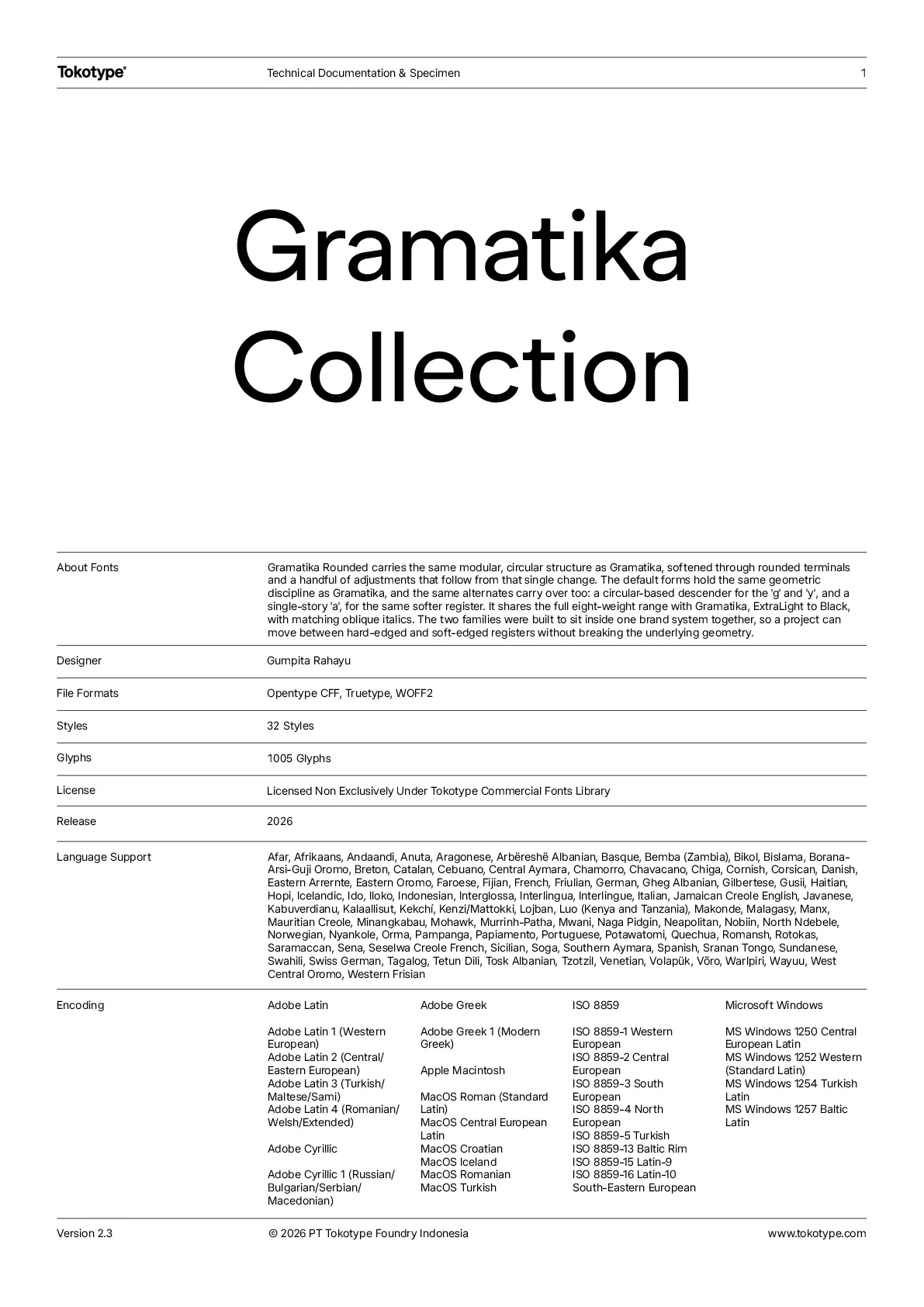
Gramatika Collection
Gramatika collection is a geometric grotesque sans family that contains 32 styles with Standard and Rounded terminals across eight weights, each with a matching italic, and has variable axis weight and slant. Gramatika is built on a modular, circular structure, its default letterforms following that geometric formula in full. The alternates carry the personality across both terminal treatments, a circular-based descender for the g and y, and a single-story a, for projects that want a softer register without leaving the system. Rounded softens that same structure through rounded terminals and a handful of adjustments that follow from that single change, so a project can move between hard-edged and soft-edged registers without breaking the underlying geometry.